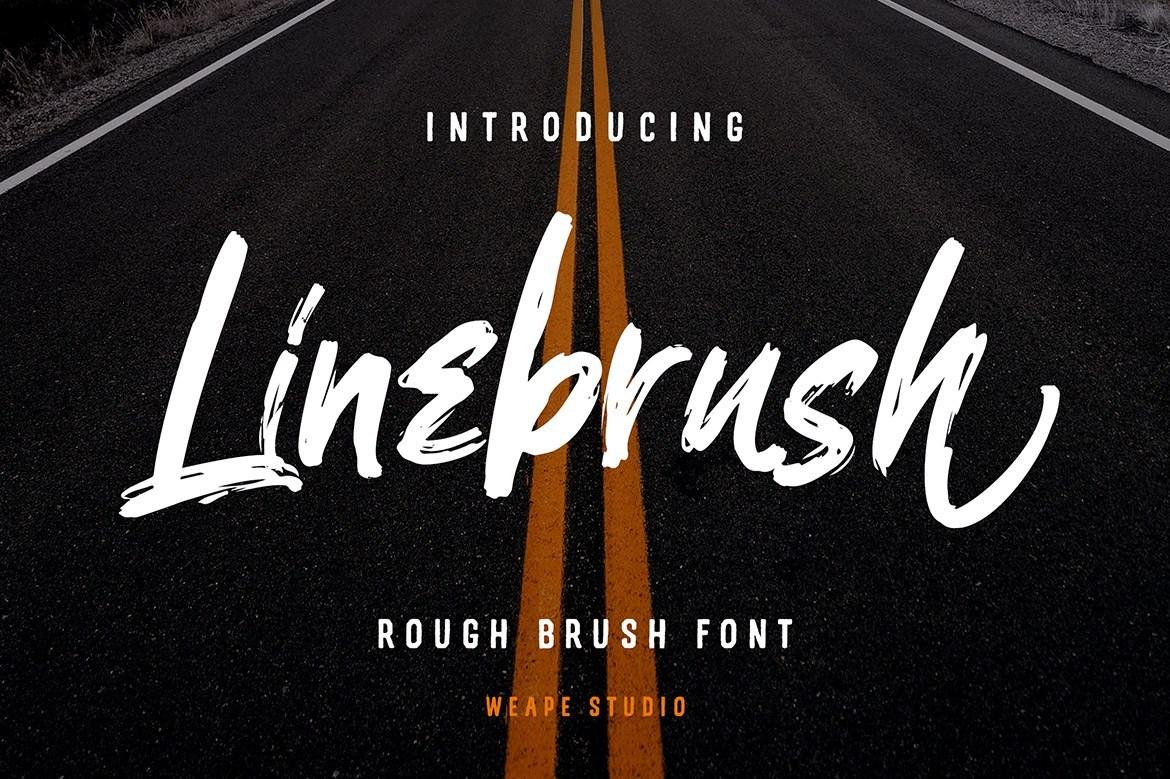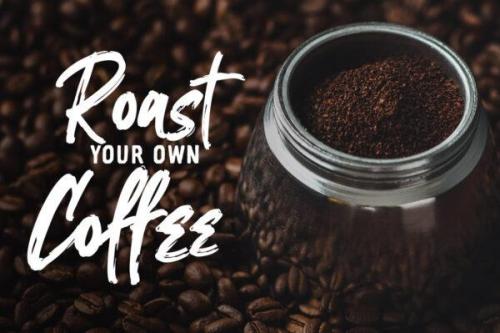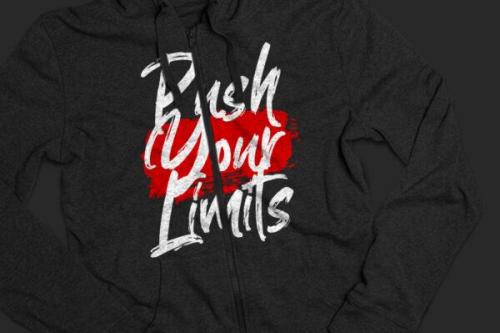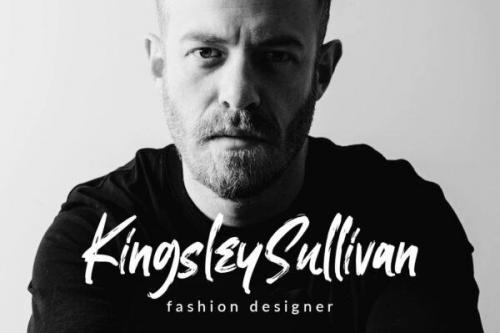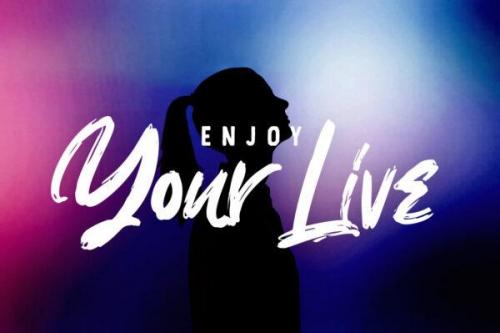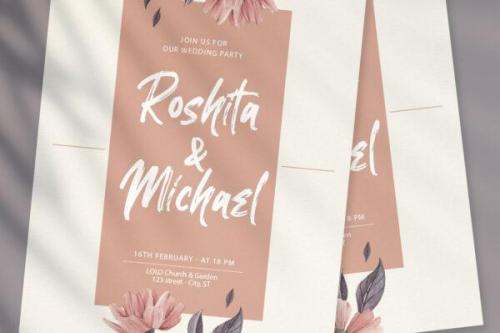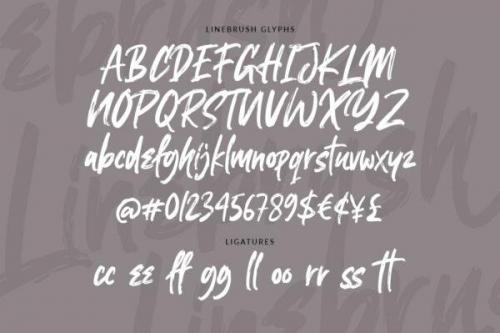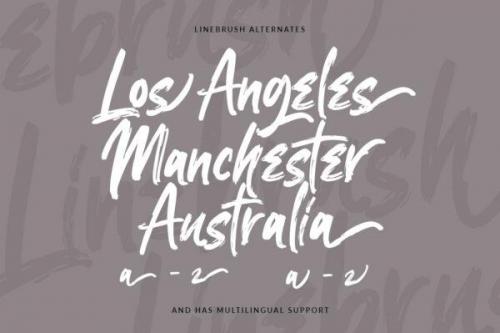
Introducing Linebrush – Rough Brush Font, with natural rough dry brush strokes, and the stroke of hand quickly. You can use and enjoy Linebrush, for promotional material and anything for your project.
And this font perfect for signature, handwritten quotes, wedding, product packaging, fashion, photography, merchandise, branding projects, poster, social media, book cover, greeting cards, and advertising.
You can create more easily with each letter and make it as if you wrote it yourself. All fonts containing upper & lowercase characters, numerals and a large range of punctuation. With otf, ttf format.
- Designer: Weape Design